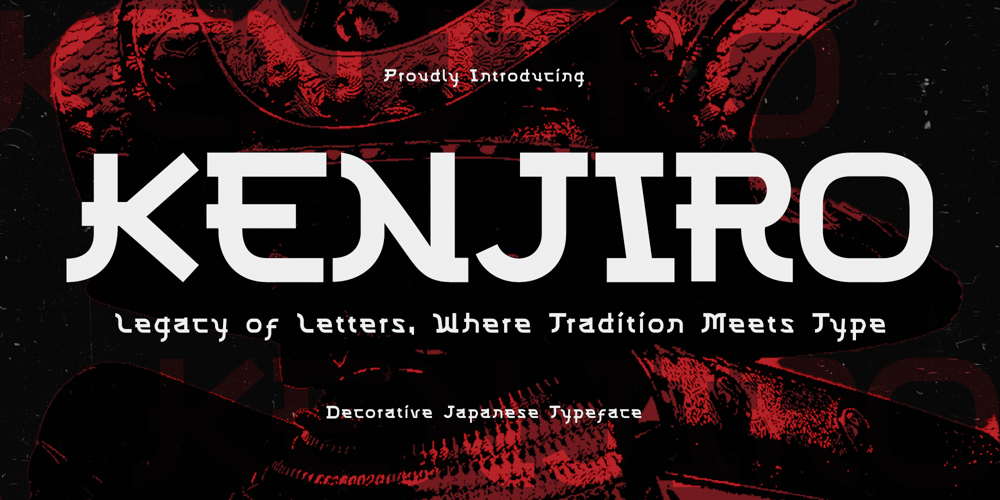
Kenjiro
Kenjiro font
Kenjiro Font Family was designed by Febrian Helmi Raharjo and published by Creatifont Studio. Kenjiro contains 1 styles and family package options. Kenjiro – is a versatile font that could be used for a variety of purposes, such as branding, logos, packaging, and invitations. It would also be a good choice for headlines and posters, as its bold personality can make a real impact. Kenjiro is reminiscent of traditional Japanese ukiyo-e woodblock prints, which were often used for decorative purposes. Kenjiro is elegant and dynamic, with stylized strokes and a sense of movement. The characters are inspired by Japanese calligraphy,- but with a more playful and contemporary feel.A SUMMARY OF WHAT’S INCLUDED: Standard Character A-Z, a-z, 0-9, Punctuation & symbols Ligature Glyphs Multilingual Support Works on PC & Mac Simple installation Accessible in Adobe Creative Suite (Ai, Ps, Id, etc.) even work on Microsoft Word. PUA Encoded Characters – Fully accessible without additional design software. 🌟If you come across any issues or notice anything we might have overlooked while using this product, please feel free to reach out to us. We greatly value your feedback as it helps us enhance and refine our products. Thank you!